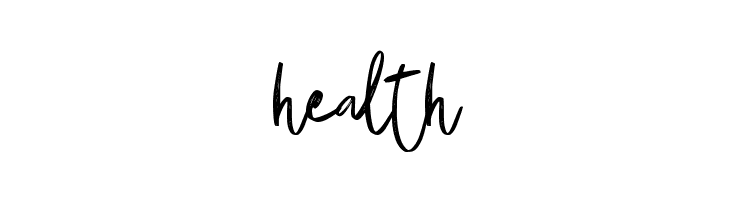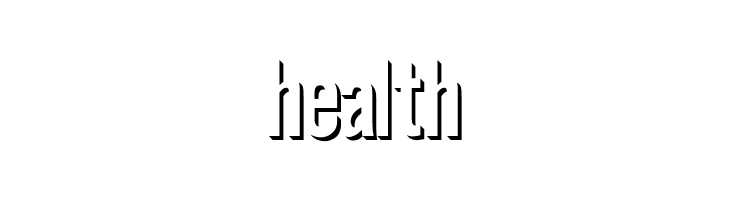
a Theme for murder Font
Font by Christopher Hansen
A dramatic, expressive font with sharp, elongated strokes and a dynamic flow.
Carnivalee Freakshow Font
Font by Christopher Hansen
A bold, decorative font with a vintage circus theme and ornate, distressed edges.
Headliner No. 45 Font
Font by Kevin Christopher - www.kcfonts.com
A bold, distressed font with a vintage, industrial style.
ALL AGES DEMO Bold Italic Font
Font by Kevin Christopher - www.kcfonts.com
A bold, distressed font with a vintage, rugged texture.
Beyond Wonderland Font
Font by Christopher Hansen
A whimsical, decorative font with intricate swirls and a vintage, storybook feel.
CanterBold Font
A tall, condensed font with a modern and sleek design.
Urban Jungle DEMO Font
A bold, distressed font with an urban, graffiti-inspired aesthetic.
Christopherhand Font
Font by El Stinger
A casual, handwritten font with dynamic, expressive strokes.
Horst Blackletter Demo Font
Font by Horst Type Foundry - Christopher Horst - www.horst-art.com
A bold and intricate Blackletter font with sharp, angular lines and dramatic flourishes.
Friday Night Lights Font
A bold, varsity-style font with a textured, dotted interior and strong outlines.
Kraft Nine Font
Font by Kevin Christopher - www.kcfonts.com
A bold, textured font with a distressed, handcrafted appearance.
ALL AGES DEMO Font
Font by Kevin Christopher - www.kcfonts.com
Arty Signature Font
A dynamic, handwritten font with a signature-like style, featuring varied strokes and expressive curves.
Jomolhari Font
A classic serif font with elegant strokes and pronounced serifs.
CanterLight Font
A modern, light, and condensed sans-serif font with uniform stroke width.
Got heroin? Font
Font by Christopher Hansen
A grungy, distressed font with an uneven, chaotic style.
Sell Your Soul Font
Font by Christopher Hansen
A classic serif font with elegant, sharp serifs and subtle medieval influences.
Horst Roman Gothic Font
Font by Horst Type Foundry - Christopher Horst - www.horst-art.com
A dramatic, Gothic-inspired font with sharp, angular lines and intricate detailing.
1 Font